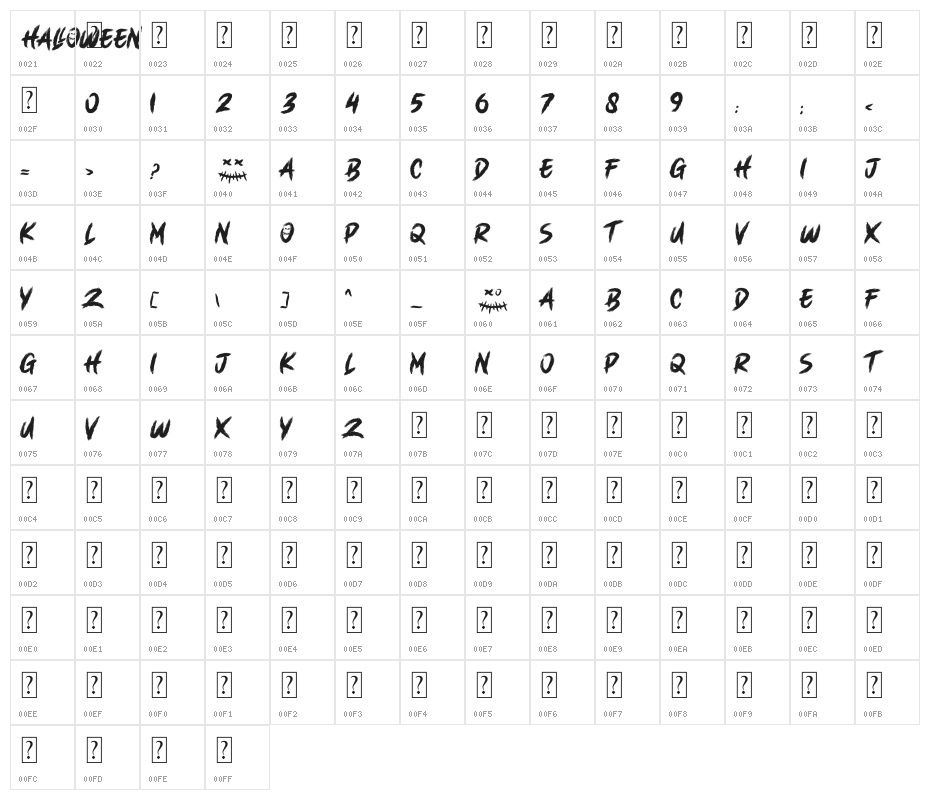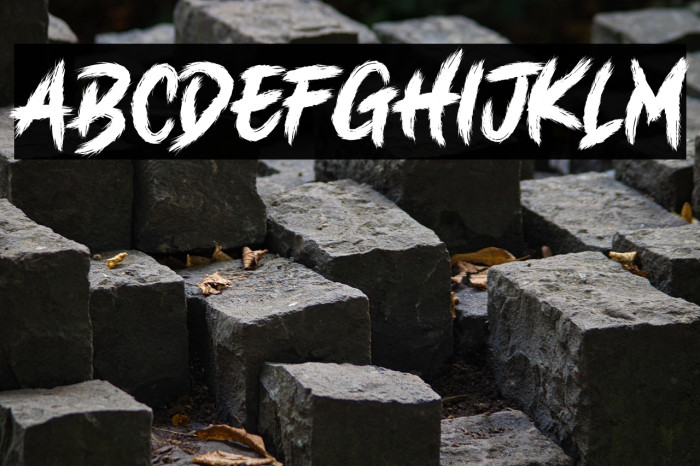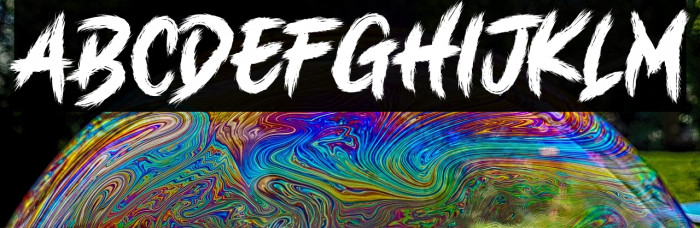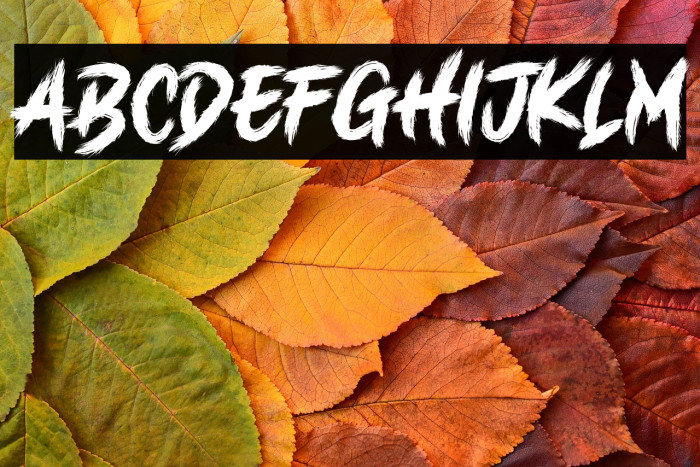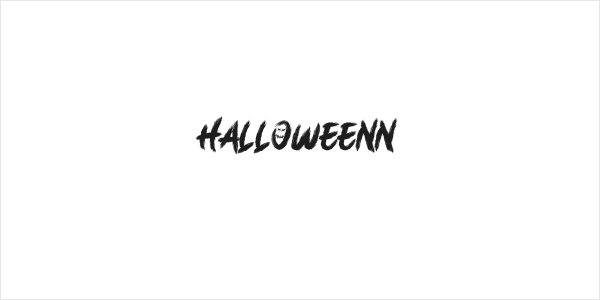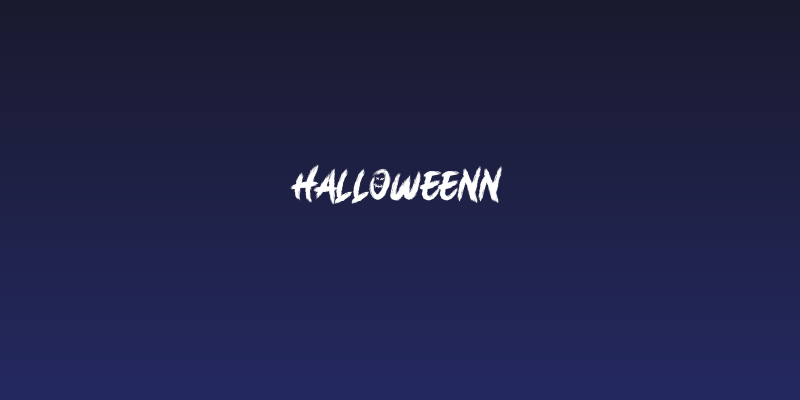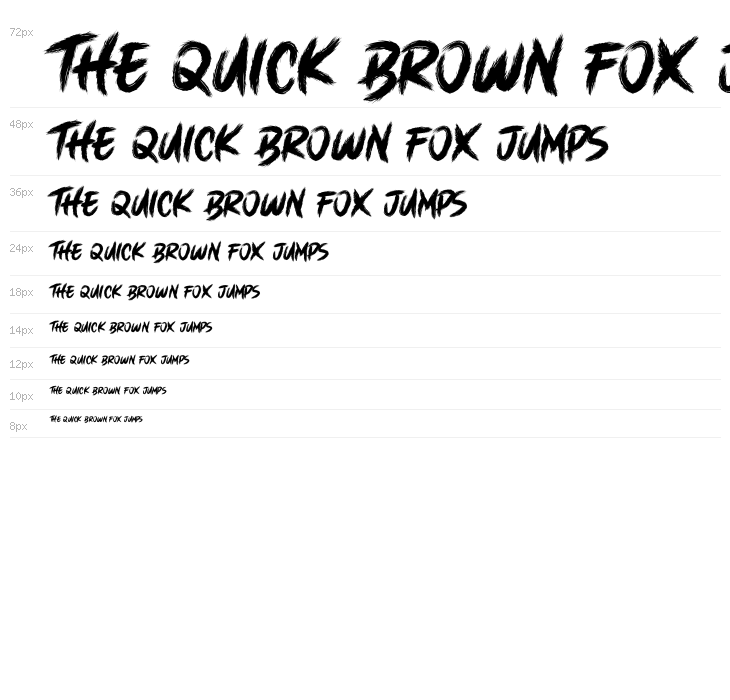
HALLOWEENN Font
HALLOWEENN Description
This font exudes a spooky and eerie vibe, perfect for Halloween-themed projects. The letters are designed with jagged, brush-like strokes that give an impression of movement and chaos, reminiscent of horror movie titles. The uppercase and lowercase letters maintain a consistent style, with sharp edges and a slightly irregular baseline that enhances the unsettling aesthetic. The numbers and special characters follow the same design principles, ensuring a cohesive look across all text elements. This font is ideal for creating eye-catching headlines and titles that need to convey a sense of mystery and suspense.
| Proposed Projects | Perfect for Halloween posters, horror movie titles, haunted house flyers, and spooky event invitations. |